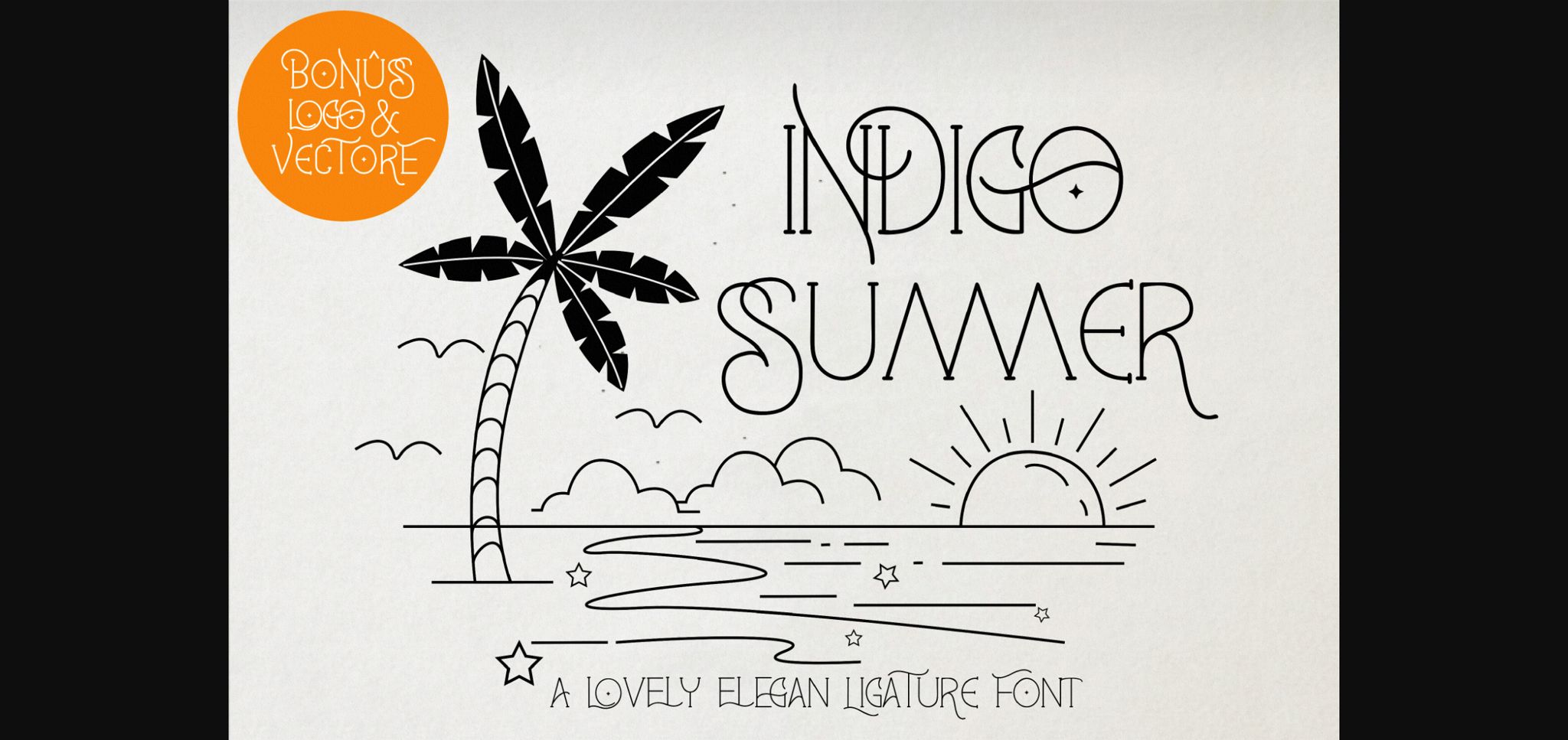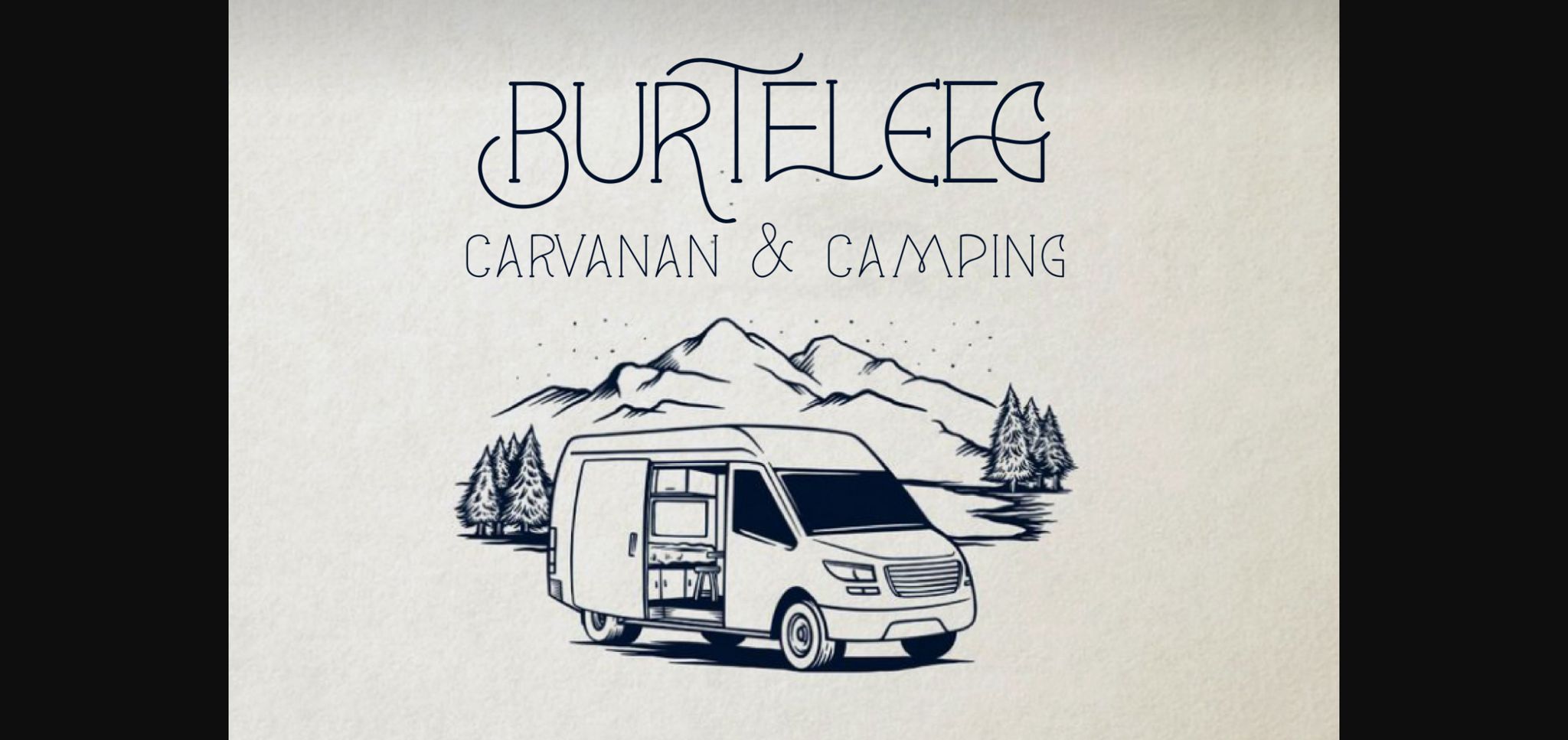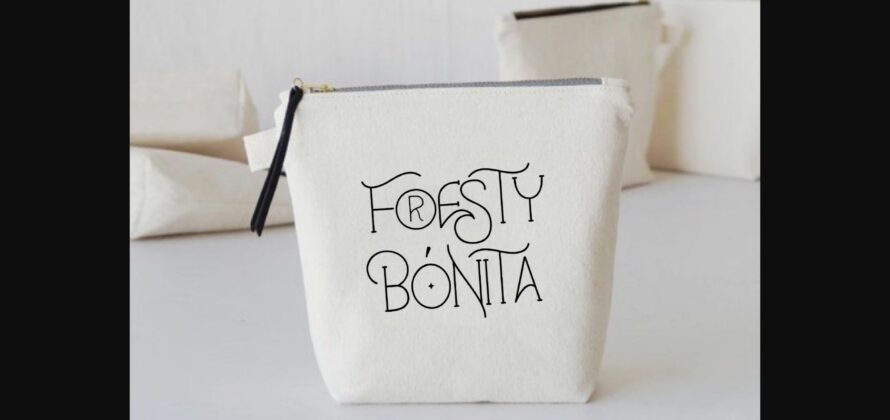
About Indigo Summer Font
Indigo Summer is a lively sans-serif typeface that embodies the carefree spirit of summertime. Its rounded edges and playful curves evoke the warmth of sunny days and the coolness of ocean breezes. Perfect for designs seeking a relaxed, inviting vibe, Indigo Summer brings a touch of fun to any project.